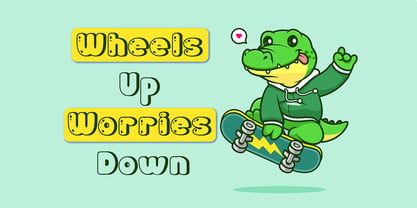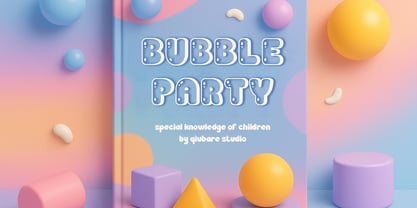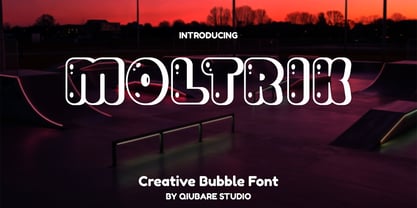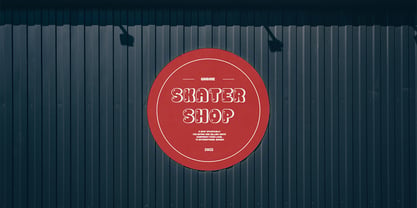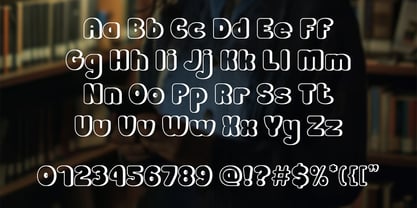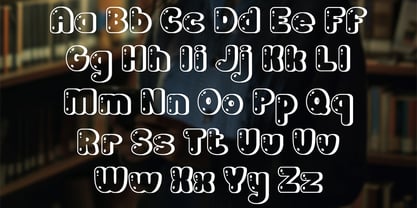
Moltrik
Moltrik is a bold and modern bubble display font featuring a unique urban twist. Its thick rounded shapes, paired with playful inner details, create a strong visual impact while maintaining a fun and approachable personality. This font stands out with its distinctive style that seamlessly blends street, sporty, and playful vibes, making it ideal for eye-catching headlines and innovative branding. Whether you’re designing for streetwear, skate culture, posters, or dynamic digital content, Moltrik infuses energy and character into every composition, ensuring your message is both memorable and engaging.